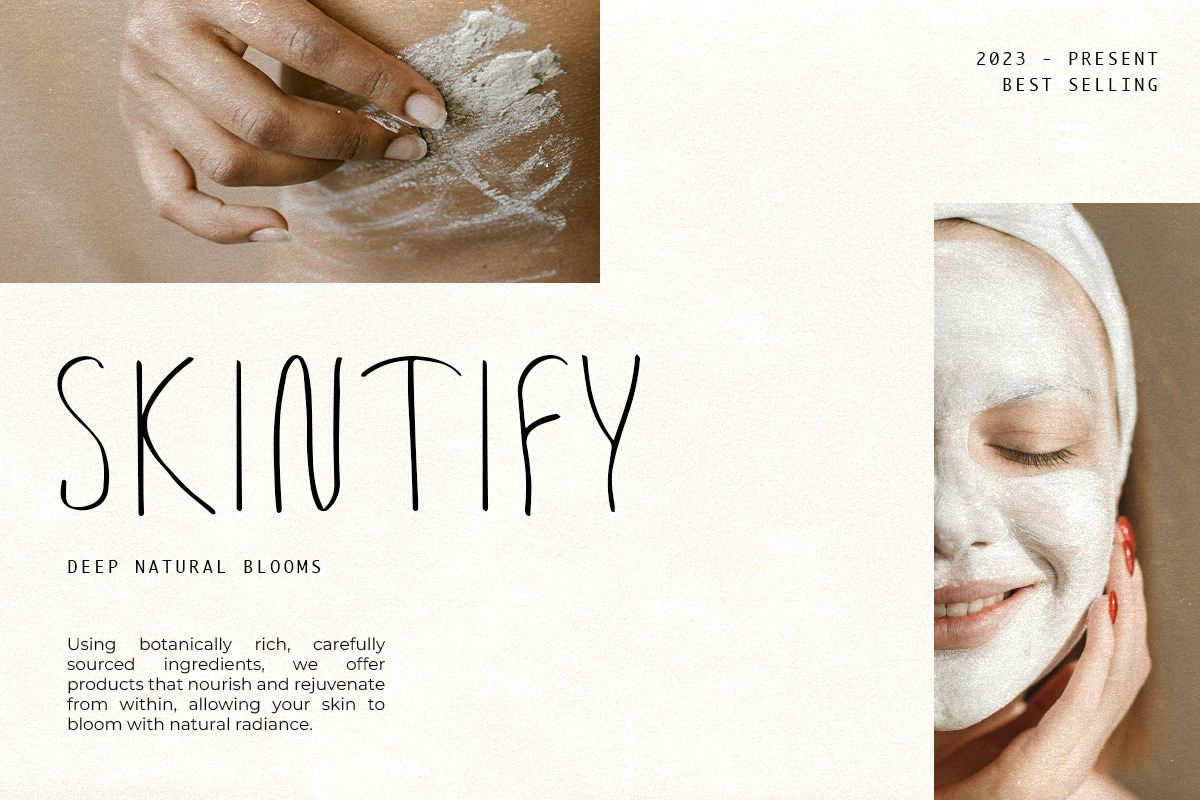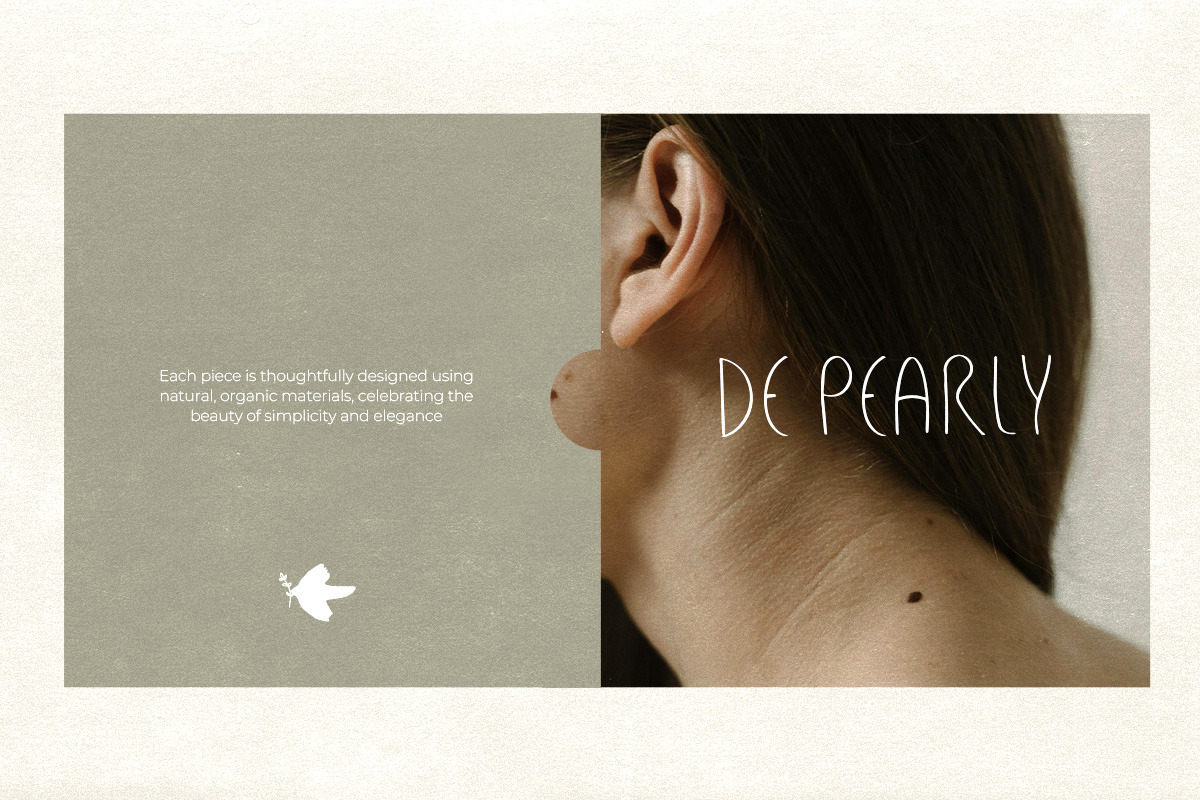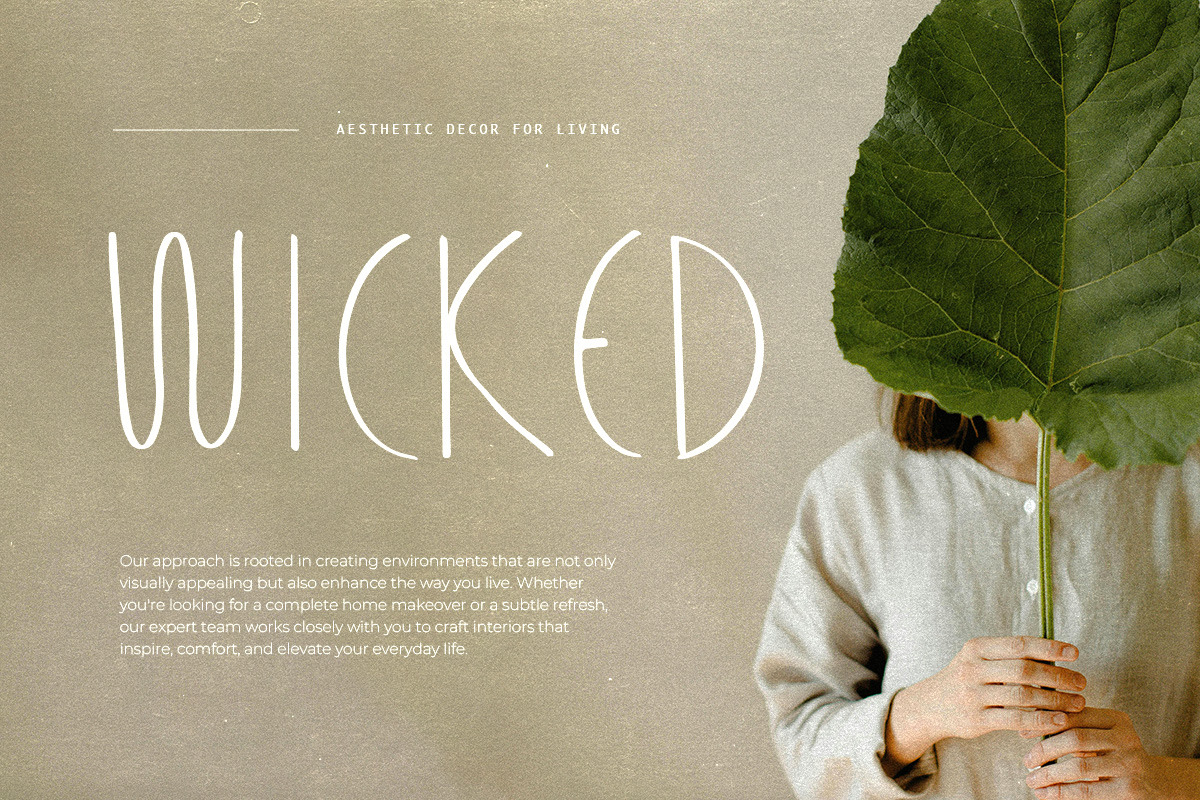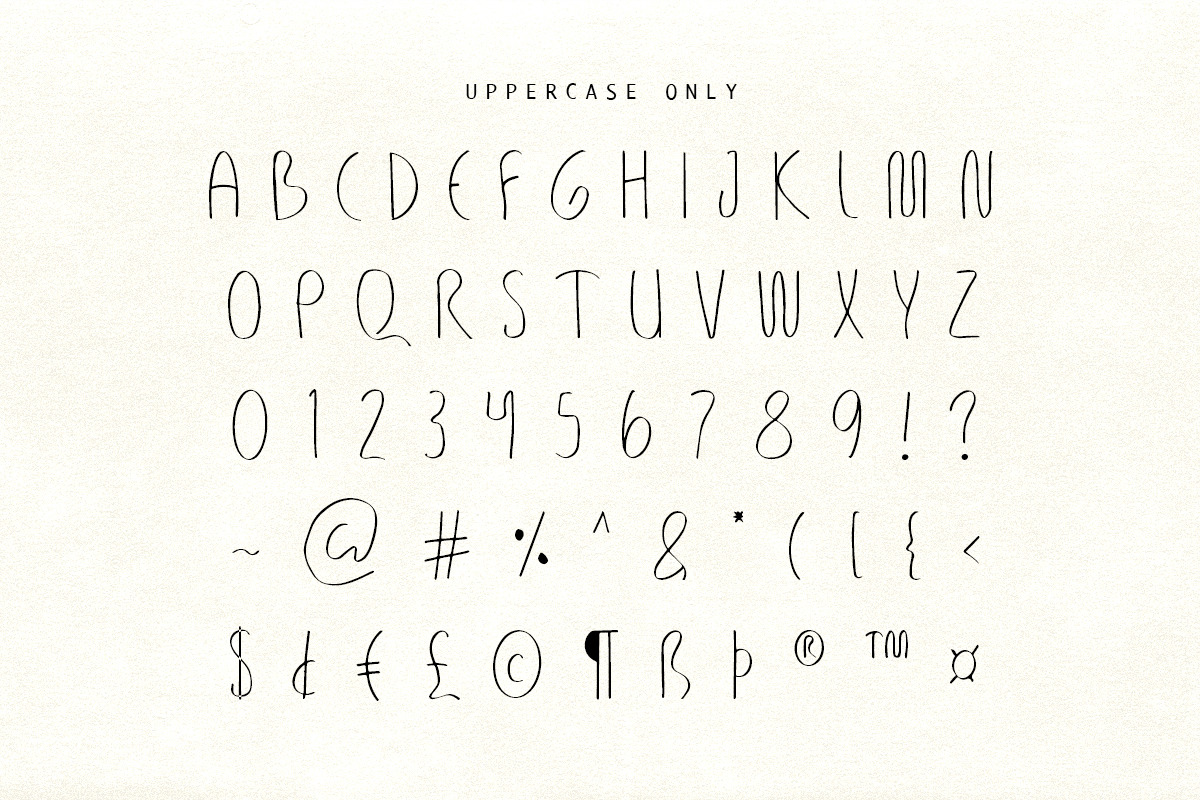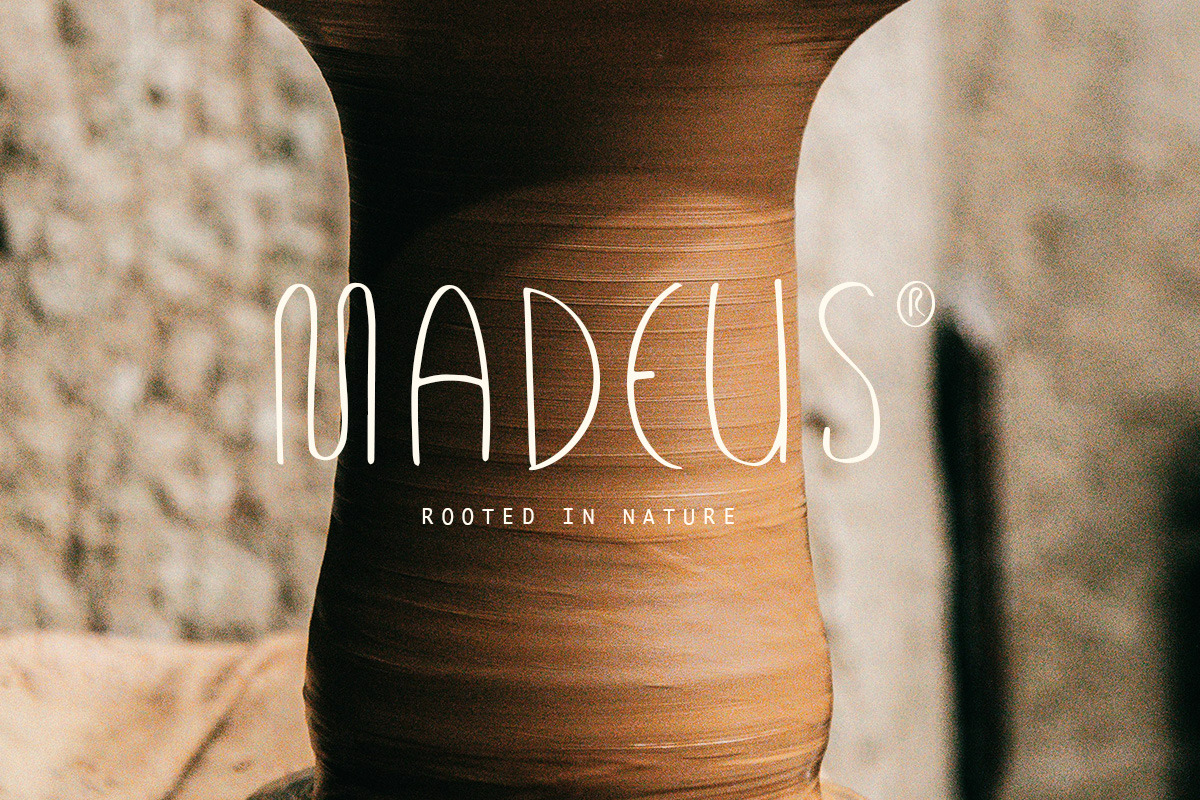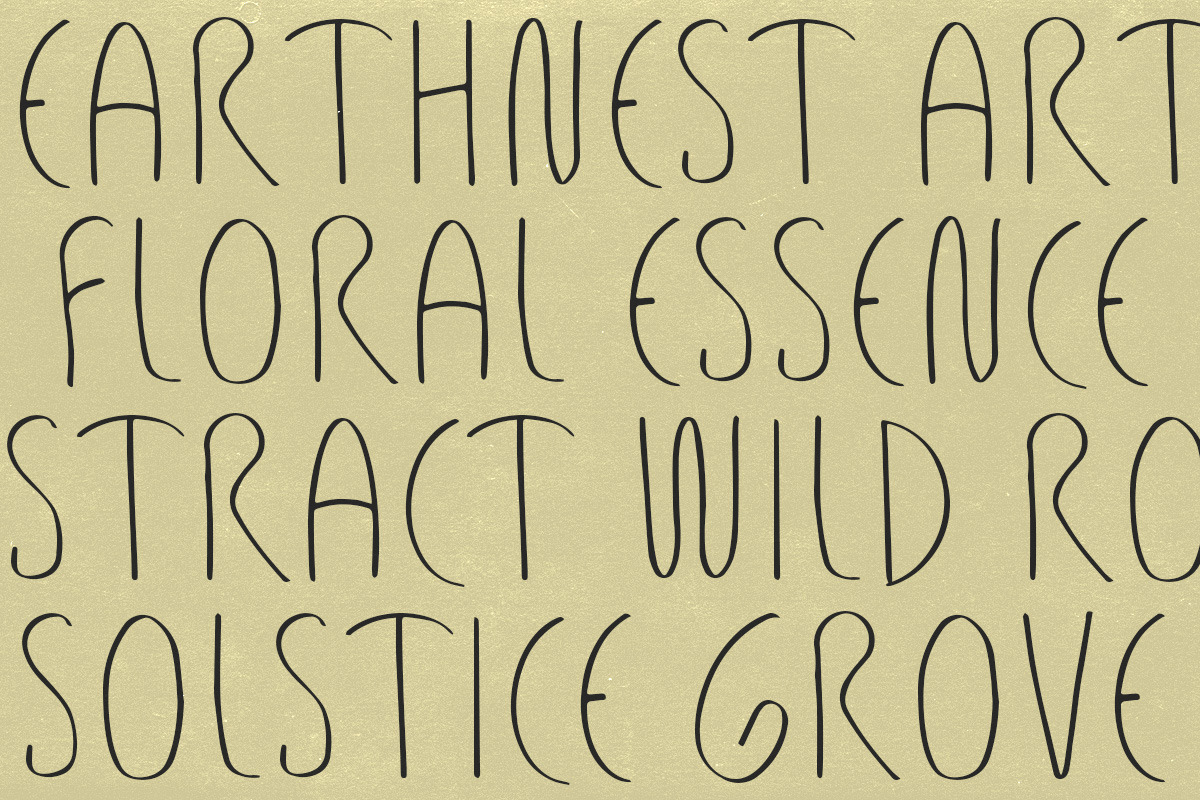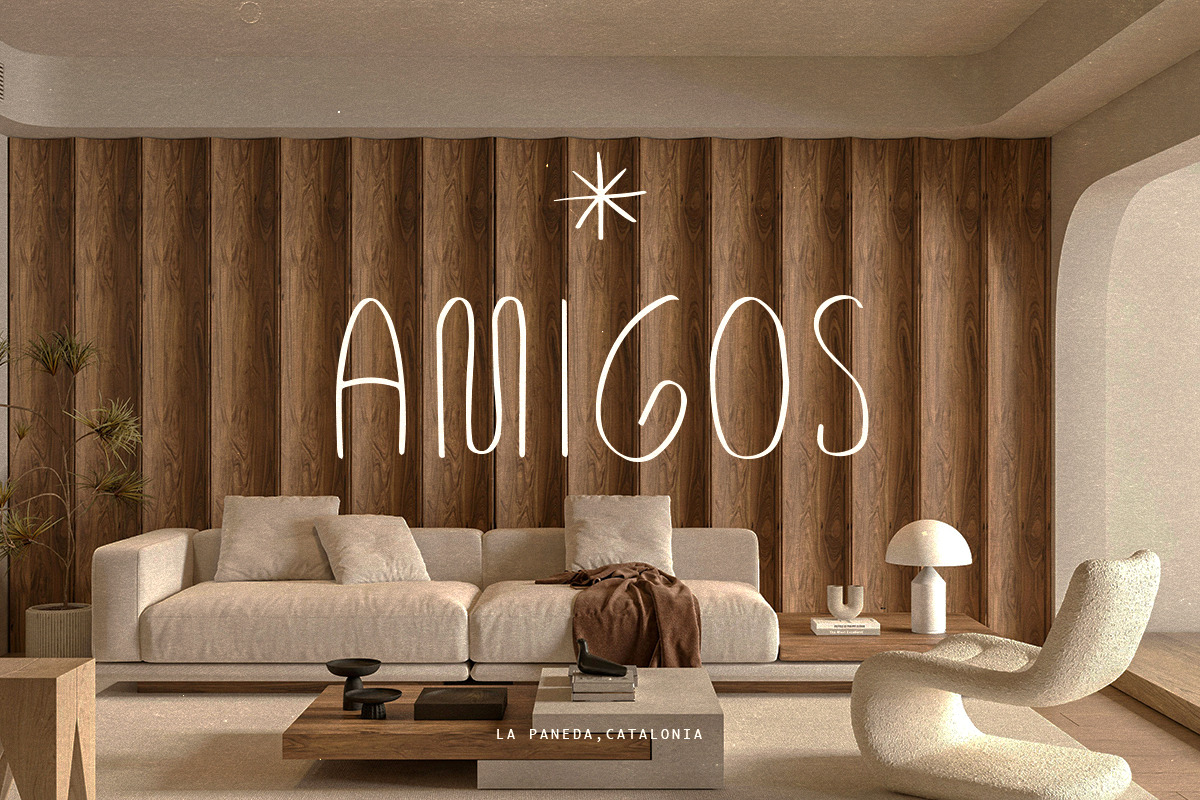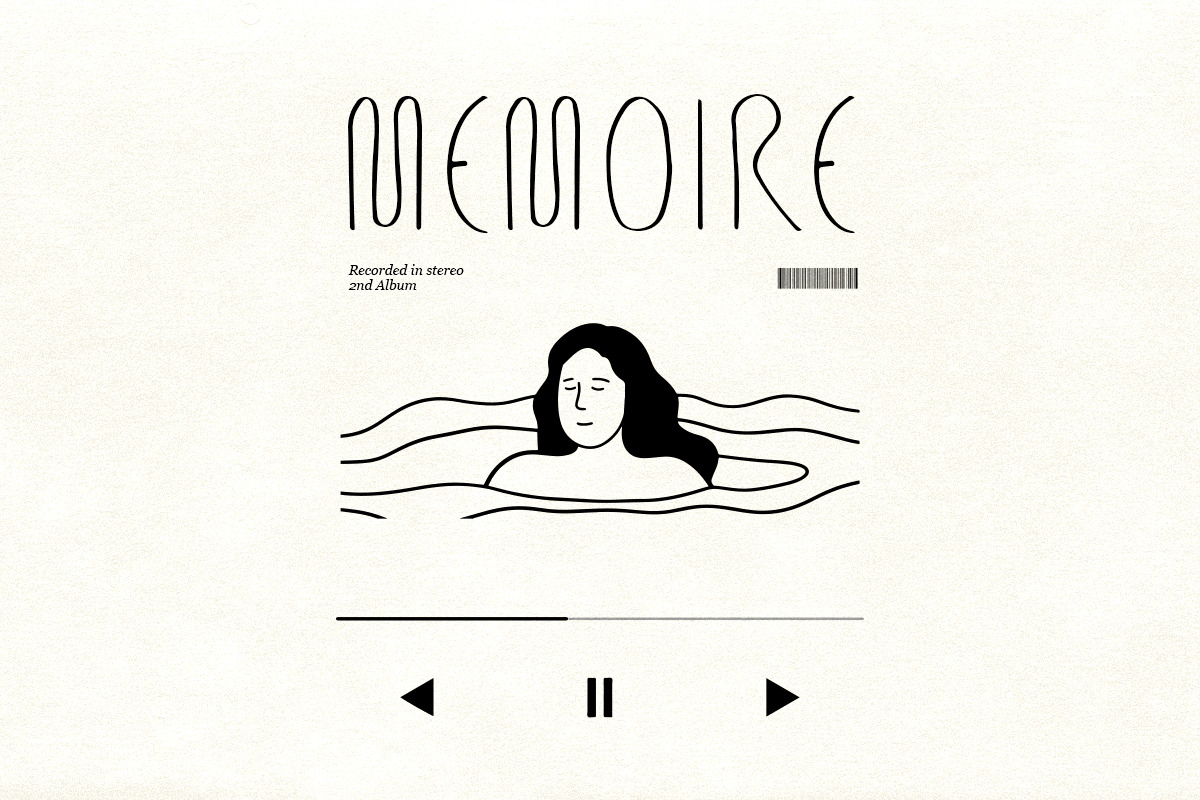
Lovlar - Natural Sans
Lovlar is a crafted sans serif handwritten font, designed to embody the essence of organic simplicity. With its clean lines and natural flow, Lovlar is perfect for brands that emphasize authenticity, sustainability, and handcrafted elegance. This font is available in uppercase only, making it an ideal choice for bold headings, logos, and branding that require a striking yet refined aesthetic.